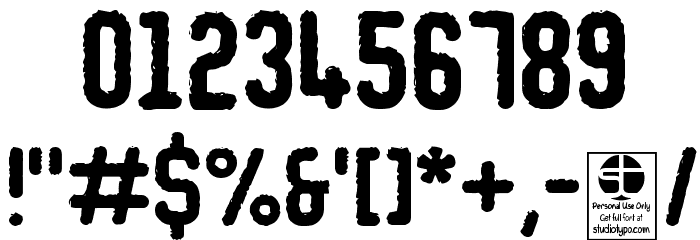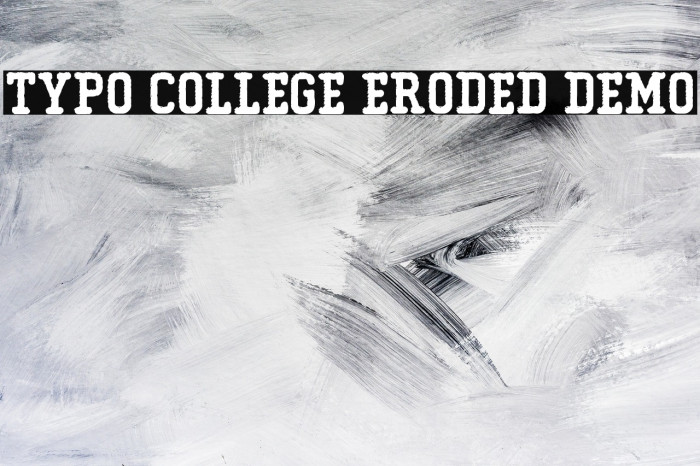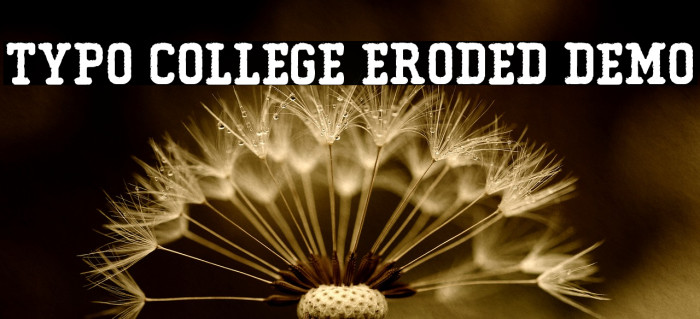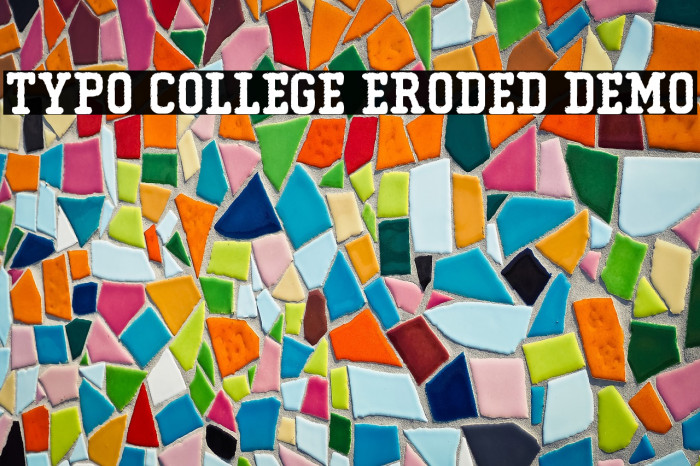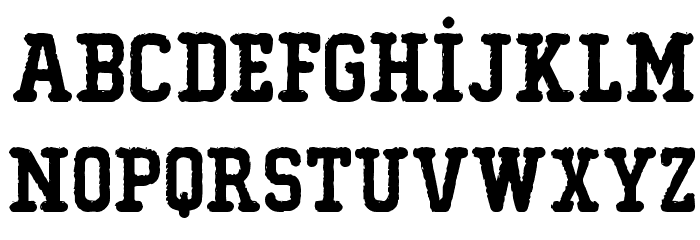
Typo College Eroded Demo Font
Typo College Eroded Demo Description
This font features a bold, rugged style with an eroded texture that gives it a distressed, vintage appearance. The characters are uppercase and lowercase, with numerals and a variety of special symbols. The eroded effect adds a unique, worn look, making it ideal for designs that require a retro or grunge aesthetic. The strokes are thick and consistent, providing a strong presence on the page. Despite the eroded texture, the characters remain highly legible, ensuring readability in various applications.
A bold, eroded font with a vintage, distressed look from Old fashioned fonts.
- Proposed Projects: Ideal for vintage-themed posters, album covers, branding for rustic or retro products, and any design requiring a grunge aesthetic.
- Overall Style: Vintage